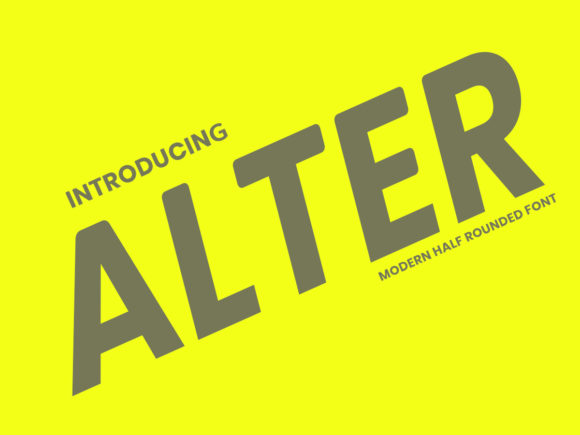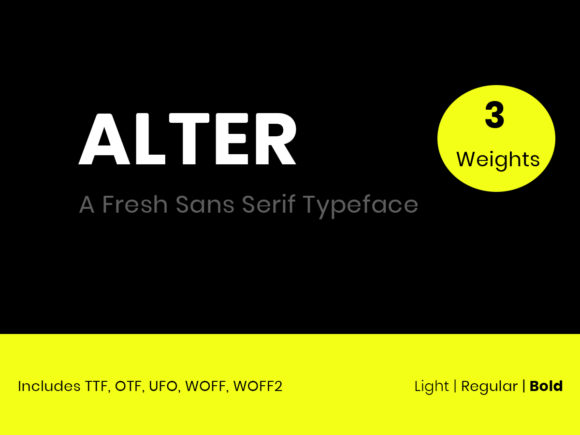
Give Your Designs a Fresh Twist with Alter Font
Have you ever stared at a blank page, struggling to find the perfect font to bring your creative vision to life? We’ve all been there. But what if you could find a font that effortlessly elevates your designs, making them stand out in a crowded digital landscape?
Enter Alter Font, a sleek and modern sans serif font designed to breathe new life into your projects. With its clean lines and minimal aesthetic, Alter Font is the perfect companion for designers seeking a versatile and timeless font that can adapt to any creative endeavor.
Whether you’re crafting a bold brand identity or creating a captivating digital experience, Alter Font is a valuable addition to your design toolkit. Its versatility and understated charm make it an ideal choice for designers looking to add a touch of sophistication to their work.
Key Features of Alter Font
- Unique Characteristics: Alter Font features a unique blend of modern and traditional elements, making it an ideal choice for designers and typographers looking for a distinctive and eye-catching font.
- Scalability: Alter Font is designed to be highly scalable, ensuring that it remains clear and legible at various sizes and resolutions, making it an ideal choice for use in a wide range of applications.
Alter Font Review
Overall, I found the Alter Font to be a solid, albeit unremarkable choice for a font.
- Clear readability: The font is easy to read, even at smaller sizes.
- Sleek design: The font has a clean, modern aesthetic that works well for digital interfaces.
- Good versatility: Alter Font can be used in a variety of contexts, from body text to headings.
- Lack of personality: The font doesn’t stand out in a crowded market, making it hard to remember.
- Not ideal for print: The font can look somewhat pixelated when printed, which may be a concern for some users.
- No bold or italic variants: While not a deal-breaker, the lack of these variants may limit the font’s usefulness in certain situations.
In conclusion, Alter Font is a reliable, if unremarkable, choice for a font. While it has its strengths, it may not be the best option for projects that require a unique or attention-grabbing font.